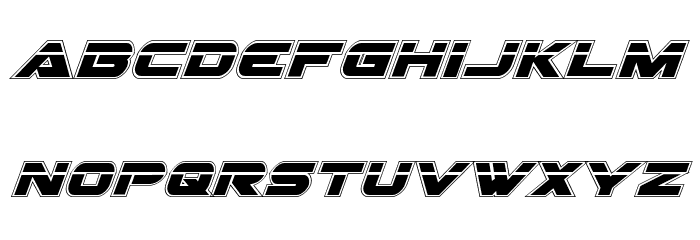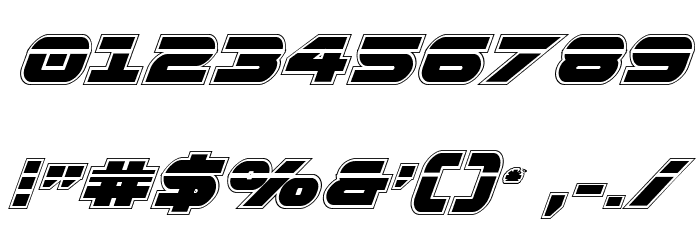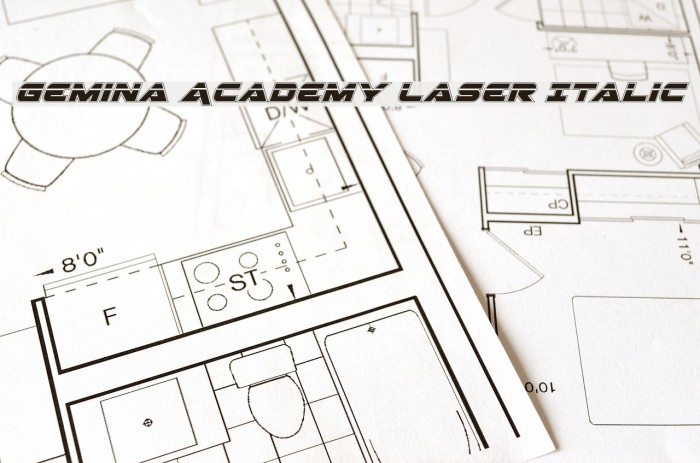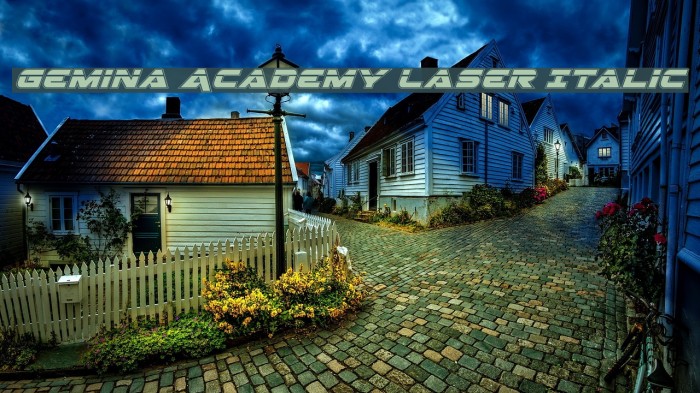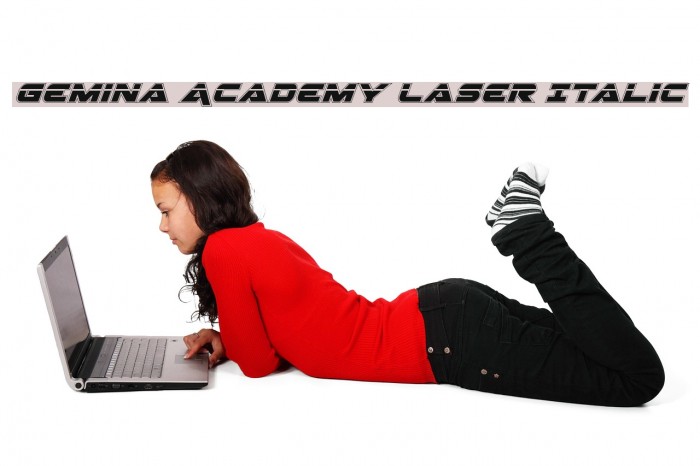
Gemina Academy Laser Italic Font
This font features a bold, futuristic design with a distinct italic slant, giving it a dynamic and energetic appearance. The characters are outlined with a double-layered effect, creating a sense of depth and movement. The angular, geometric shapes of the letters contribute to its modern and tech-inspired aesthetic. The font is highly stylized, making it suitable for projects that require a strong visual impact. Its unique style is consistent across uppercase, lowercase, numerals, and special characters, ensuring versatility in various design contexts.
A bold, italic, futuristic font with a double-layered outline and geometric shapes.
- Proposed Projects: Ideal for tech branding, sci-fi posters, video game titles, and futuristic event flyers.
- Overall Style: Futuristic